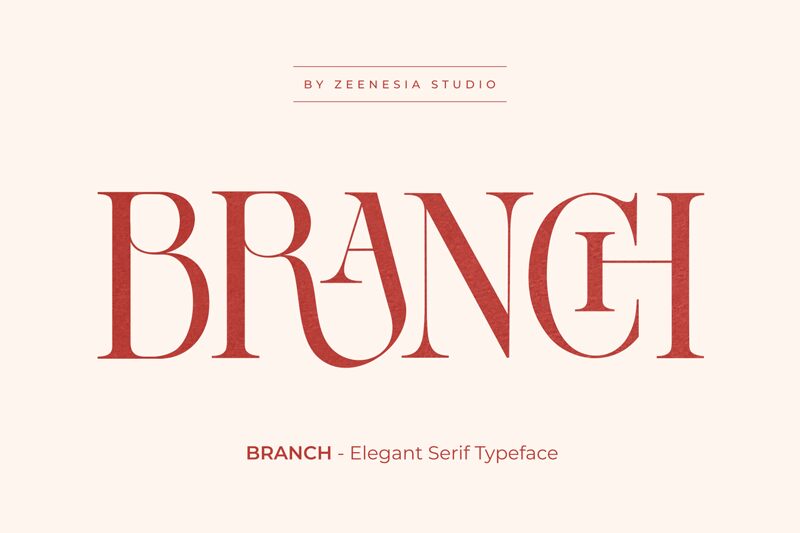
Branch font by Zeenesia Studio is a free serif font that captivates with its classic, elegant, and refined style. Combining gentle curves with a modern but timeless feel, it has a strong visual presence and an underlying luxurious quality. This font exudes sophistication while maintaining versatility, making it ideal for high-end projects. Subtle hints of Art Deco influences add an extra layer of charm to its overall aesthetics.
This versatile font is perfect for high-end branding, event invitations, magazine layouts, packaging design, logo creation, website design, book covers, advertising, fashion editorials, and stationery design. Its classic yet modern feel allows for seamless integration into various projects that require sophistication and refinement.